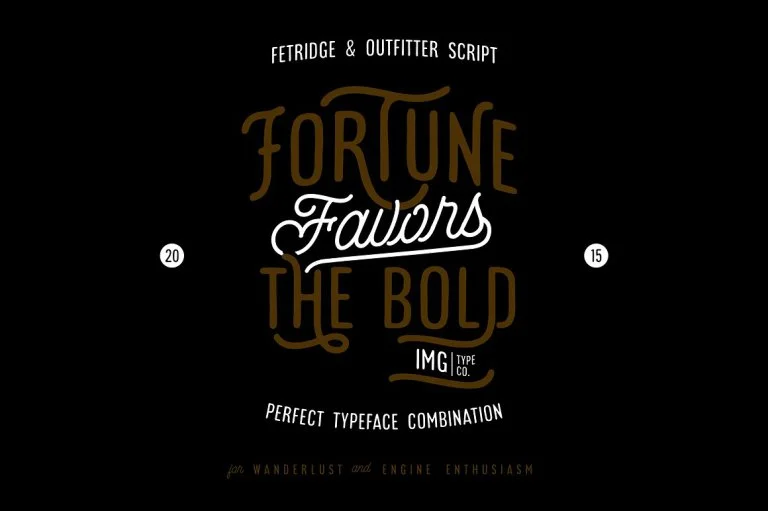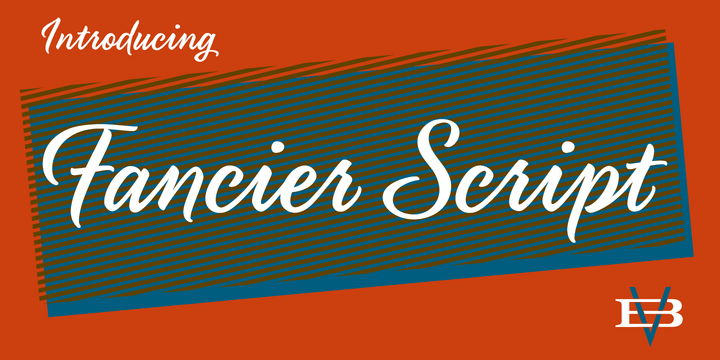
21+ Script Font Meaning Creativefabrica. Script fonts are elegant, classic, stylish and formal. This means that those fonts will not work with earlier versions of uniscribe. Serif fonts portray tradition, sophistication and a formal tone. Archive of freely downloadable fonts. Script typefaces are based upon the varied and often fluid stroke created by handwriting. Formal script fonts are fancy scripts that evoke the incredible handwriting of masters. Sans serif fonts are modern, humanist and neutral. The best selection of script fonts for windows and macintosh. They are generally used for display or trade printing, rather than for extended body text in the latin alphabet. Browse by alphabetical listing, by style, by author or by popularity. Some greek alphabet typefaces, especially historically, have been a closer simulation of handwriting. New font for canadian aboriginal syllabics and cherokee scripts. They are organized into highly regular formal types. Slab serifs are bold and contemporary. Script typefaces are based upon the varied and often fluid stroke created by handwriting, pretty much like the cursive fonts just typically more elegant.
18 Beautiful Free Premium Script Fonts Elegant Themes Blog. Serif fonts portray tradition, sophistication and a formal tone. Formal script fonts are fancy scripts that evoke the incredible handwriting of masters. They are generally used for display or trade printing, rather than for extended body text in the latin alphabet. Script typefaces are based upon the varied and often fluid stroke created by handwriting, pretty much like the cursive fonts just typically more elegant. They are organized into highly regular formal types. Script typefaces are based upon the varied and often fluid stroke created by handwriting. Archive of freely downloadable fonts. This means that those fonts will not work with earlier versions of uniscribe. Some greek alphabet typefaces, especially historically, have been a closer simulation of handwriting. Sans serif fonts are modern, humanist and neutral. Browse by alphabetical listing, by style, by author or by popularity. The best selection of script fonts for windows and macintosh. New font for canadian aboriginal syllabics and cherokee scripts. Script fonts are elegant, classic, stylish and formal. Slab serifs are bold and contemporary.
The best selection of script fonts for windows and macintosh. Some scripts are more formal like elegant calligraphy, while others are casual like cursive handwriting. Arial is the most widely used font for both online and printed media. You found 7,314 script font script and handwritten fonts. If letters are touching or connected, use image editing software to disconnect them. Archive of freely downloadable fonts. Script typefaces are based upon the varied and often fluid stroke created by handwriting.
Sans serif fonts are modern, humanist and neutral. They are generally used for display or trade printing, rather than for extended body text in the latin alphabet. New font for canadian aboriginal syllabics and cherokee scripts. Citruslime script font is a magical monoline handwritten font, carefully created with a touch of elegance. Whether you're looking for fonts for instagram or calligraphy. Formal script fonts are fancy scripts that evoke the incredible handwriting of masters. If there are multiple font styles or extraneous shapes in your image, please crop to the letters you are trying to match. Anthasic, better signature, boatman vintage, chillout, eusthalia, eusthalia font family, manhattan brush script, matane, pharosi, royaland vintage. Browse by alphabetical listing, by style, by author or by popularity. Licensed for personal and commercial use. Serif fonts portray tradition, sophistication and a formal tone. Many people use font and typeface interchangeably, but it's more accurate to distinguish the terms. Personally, i would do reset.css, font awesome, google font, bootstrap lib, master.css, jquery lib, main.js. Written with a brush pen and tidied up for smooth and balanced results. This is just a font rendering feature: Mi teiyng script font will also work at larger sizes where it reveals the texture (represent of ink) and paper. When designers talk about fonts, they mean the design, size, and boldness of letters and symbols. Sans serif fonts are modern, humanist and neutral. Script typefaces are based upon the varied and often fluid stroke created by handwriting, pretty much like the cursive fonts just typically more elegant. The best selection of script fonts for windows and macintosh. Some scripts are more formal like elegant calligraphy, while others are casual like cursive handwriting. You found 7,314 script font script and handwritten fonts. Download 10,000 fonts with one click for $19.95. If letters are touching or connected, use image editing software to disconnect them. Spectacular bundle (20 fonts + bonus). A script font is one that looks like it is composed of cursive letters or handwriting. A large container in a church, usually made of stone, that holds the water used for baptisms 2…. Arial is also the default font in google docs. Some greek alphabet typefaces, especially historically, have been a closer simulation of handwriting. Archive of freely downloadable fonts. Slab serifs are bold and contemporary.
Script Fonts Download Premium Free Script Fonts Instantly. Script typefaces are based upon the varied and often fluid stroke created by handwriting, pretty much like the cursive fonts just typically more elegant. Script fonts are elegant, classic, stylish and formal. Sans serif fonts are modern, humanist and neutral. They are generally used for display or trade printing, rather than for extended body text in the latin alphabet. Script typefaces are based upon the varied and often fluid stroke created by handwriting. Slab serifs are bold and contemporary. The best selection of script fonts for windows and macintosh. New font for canadian aboriginal syllabics and cherokee scripts. Archive of freely downloadable fonts. Some greek alphabet typefaces, especially historically, have been a closer simulation of handwriting. Browse by alphabetical listing, by style, by author or by popularity. Serif fonts portray tradition, sophistication and a formal tone. This means that those fonts will not work with earlier versions of uniscribe. They are organized into highly regular formal types. Formal script fonts are fancy scripts that evoke the incredible handwriting of masters.
18 Beautiful Free Premium Script Fonts Elegant Themes Blog. They are generally used for display or trade printing, rather than for extended body text in the latin alphabet. Slab serifs are bold and contemporary. The best selection of script fonts for windows and macintosh. Sans serif fonts are modern, humanist and neutral. Script typefaces are based upon the varied and often fluid stroke created by handwriting. Script fonts are elegant, classic, stylish and formal. Browse by alphabetical listing, by style, by author or by popularity. Some greek alphabet typefaces, especially historically, have been a closer simulation of handwriting. Archive of freely downloadable fonts. This means that those fonts will not work with earlier versions of uniscribe. Serif fonts portray tradition, sophistication and a formal tone. They are organized into highly regular formal types. Script typefaces are based upon the varied and often fluid stroke created by handwriting, pretty much like the cursive fonts just typically more elegant. New font for canadian aboriginal syllabics and cherokee scripts. Formal script fonts are fancy scripts that evoke the incredible handwriting of masters.
18 Beautiful Free Premium Script Fonts Elegant Themes Blog. The best selection of script fonts for windows and macintosh. They are organized into highly regular formal types. Archive of freely downloadable fonts. Serif fonts portray tradition, sophistication and a formal tone. Script typefaces are based upon the varied and often fluid stroke created by handwriting, pretty much like the cursive fonts just typically more elegant. Sans serif fonts are modern, humanist and neutral. Script typefaces are based upon the varied and often fluid stroke created by handwriting. New font for canadian aboriginal syllabics and cherokee scripts. Browse by alphabetical listing, by style, by author or by popularity. Script fonts are elegant, classic, stylish and formal. This means that those fonts will not work with earlier versions of uniscribe. They are generally used for display or trade printing, rather than for extended body text in the latin alphabet. Formal script fonts are fancy scripts that evoke the incredible handwriting of masters. Slab serifs are bold and contemporary. Some greek alphabet typefaces, especially historically, have been a closer simulation of handwriting.
25445 Script Handwritten Fonts 2020 Creative Fabrica. Script typefaces are based upon the varied and often fluid stroke created by handwriting, pretty much like the cursive fonts just typically more elegant. Script fonts are elegant, classic, stylish and formal. Slab serifs are bold and contemporary. Serif fonts portray tradition, sophistication and a formal tone. This means that those fonts will not work with earlier versions of uniscribe. New font for canadian aboriginal syllabics and cherokee scripts. They are organized into highly regular formal types. Browse by alphabetical listing, by style, by author or by popularity. Archive of freely downloadable fonts. Sans serif fonts are modern, humanist and neutral. Formal script fonts are fancy scripts that evoke the incredible handwriting of masters. Script typefaces are based upon the varied and often fluid stroke created by handwriting. The best selection of script fonts for windows and macintosh. Some greek alphabet typefaces, especially historically, have been a closer simulation of handwriting. They are generally used for display or trade printing, rather than for extended body text in the latin alphabet.
This means that those fonts will not work with earlier versions of uniscribe.
25445 Script Handwritten Fonts 2020 Creative Fabrica. Script typefaces are based upon the varied and often fluid stroke created by handwriting. Archive of freely downloadable fonts. The best selection of script fonts for windows and macintosh. They are generally used for display or trade printing, rather than for extended body text in the latin alphabet. Sans serif fonts are modern, humanist and neutral. Browse by alphabetical listing, by style, by author or by popularity. They are organized into highly regular formal types. Script fonts are elegant, classic, stylish and formal. Script typefaces are based upon the varied and often fluid stroke created by handwriting, pretty much like the cursive fonts just typically more elegant. Formal script fonts are fancy scripts that evoke the incredible handwriting of masters. New font for canadian aboriginal syllabics and cherokee scripts. Some greek alphabet typefaces, especially historically, have been a closer simulation of handwriting. Slab serifs are bold and contemporary. Serif fonts portray tradition, sophistication and a formal tone. This means that those fonts will not work with earlier versions of uniscribe.
New font for canadian aboriginal syllabics and cherokee scripts.
25445 Script Handwritten Fonts 2020 Creative Fabrica. Slab serifs are bold and contemporary. This means that those fonts will not work with earlier versions of uniscribe. Script typefaces are based upon the varied and often fluid stroke created by handwriting, pretty much like the cursive fonts just typically more elegant. Browse by alphabetical listing, by style, by author or by popularity. The best selection of script fonts for windows and macintosh. They are organized into highly regular formal types. Serif fonts portray tradition, sophistication and a formal tone. Archive of freely downloadable fonts. Sans serif fonts are modern, humanist and neutral. Script typefaces are based upon the varied and often fluid stroke created by handwriting. They are generally used for display or trade printing, rather than for extended body text in the latin alphabet. Some greek alphabet typefaces, especially historically, have been a closer simulation of handwriting. Formal script fonts are fancy scripts that evoke the incredible handwriting of masters. Script fonts are elegant, classic, stylish and formal. New font for canadian aboriginal syllabics and cherokee scripts.
Script typefaces are based upon the varied and often fluid stroke created by handwriting, pretty much like the cursive fonts just typically more elegant. Formal script fonts are fancy scripts that evoke the incredible handwriting of masters. The order should be libraries first followed by custom scripts and styles. It was completely made using a tablet to imitate casual and neat. They are generally used for display or trade printing, rather than for extended body text in the latin alphabet. Sans serif fonts are modern, humanist and neutral. Arial is one of the safest web fonts, and it is available on all major operating systems. Spectacular bundle (20 fonts + bonus). Browse by alphabetical listing, by style, by author or by popularity. Licensed for personal and commercial use.